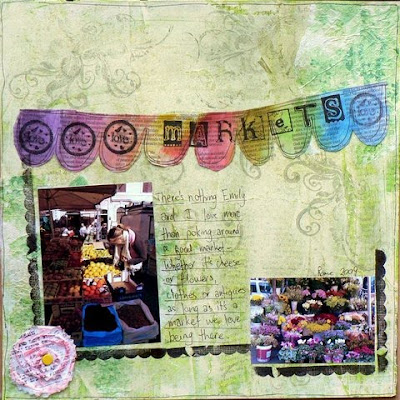
and so do you!! great pages everyone. this prompt created some very unique layouts! and who doesn't love a word bubble??!!
here are all our contestants this time around.
Prompt #26, lets see what you got!
We are back once again with another challenge for you!! But before we get to that, lets see who won the last challenge, shall we?
Well the winner of the Type inspired embellishment prompt was..............................................
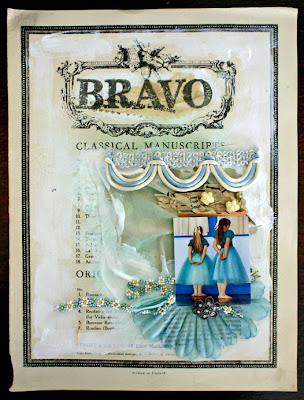
Our next prompt involves taking inspiration from comic books!! All of those big bold words in conversation bubbles, pretty fun stuff to play around with on a layout. Our guest designer is the wonderful Angie Backen!!! I am quite partial to Angie, I was able to meet her last June at Sisiversary, she happened to be my roomie. Other then that, Angie is pretty good at creating some fun and beautiful layouts!! It was about time that we had her guest design.
Now lets see how some of the Typists used some comic book style in their projects.
i must say how much we all enjoy your creative take on all of our challenges... this last one especially!! prompt #25 was all about incorporating type within your embellishments. spurred on by our TyPist'S take on the challenge, you created some wonderful pages and more CARDS!!!
Prompt #25, Incorporating type in your embellisments.
Well you all rocked it with the neutral challenge, and it was not an easy one to do. I myself enjoyed doing the neutral prompt, because I find that sometimes I go a bit crazy with color. Its like a cleansing of the palette. I think in the future I will look back on this idea a lot more and use it in my layouts and mini book pages more often!
With that said, we have a winner from prompt #24, we loved them all, but we could only choose one.
Now on to prompt #25, using type on your embellishments. Whichever way you decide to do, whether you make a piece of a magazine into a flower, or you write all over a tag. Type on your embellishments is the mission!
Now onto the the Creative Type team's creations.